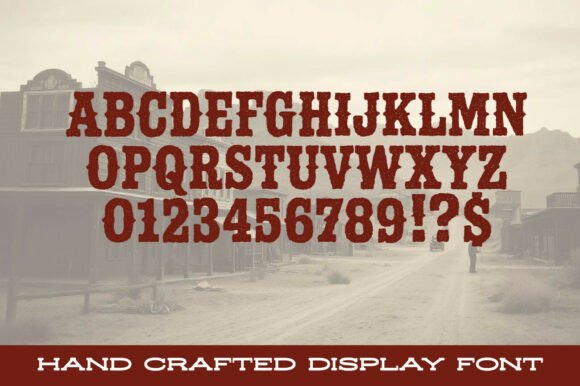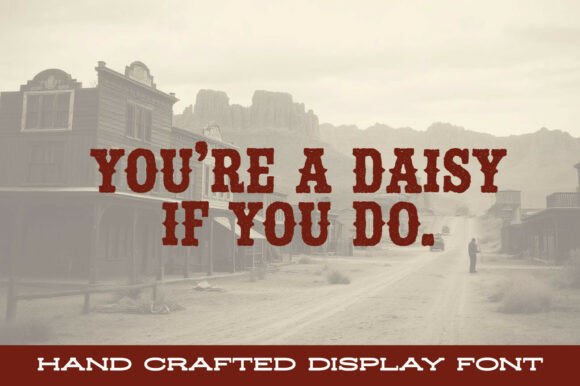
Introduction to Hitchpost Font
Remember the moment when you stumbled upon the perfect font for your design project? The one that instantly transports you to a dusty trail, an old saloon, or a vintage poster? For designers, that ‘aha’ moment is priceless. It’s the spark that ignites creativity and sets your project apart from the rest. For many, that font is Hitchpost Font – a bold, weathered slab-serif font that exudes rugged charm.
As a valuable design resource, Hitchpost Font offers a high-quality, high-impact solution for designers seeking a distinctive look. With its gritty texture, heavy serifs, and spur details, this font is perfect for Western-themed designs, vintage branding, and bold headlines that demand attention. Whether you’re working on a free download project or a paid design job, Hitchpost Font is a versatile tool that can elevate your creative project.
Key Features of Hitchpost Font
- High-quality font design with a unique, modern aesthetic, perfect for creative projects.
- Includes a range of glyphs and characters, ideal for professional and personal use.
- Perfect for use in various design applications, including digital art, graphic design, and print media.
Honest Review: Hitchpost Font
I recently stumbled upon the Hitchpost Font and was immediately drawn to its high quality and unique aesthetic. The transparent background and minimalist design make it a fantastic addition to any design project.
Here are some aspects that really work well for me:
- ✨ The font is incredibly versatile and can be used for a wide range of creative projects, from branding to editorial content.
- ✨ The high quality of the font ensures that it looks crisp and clear, even at larger font sizes.
However, there are a few limitations that I’ve encountered:
- ⚠️ The font may not be as readable at smaller font sizes, which can be a concern for certain design applications.
- ⚠️ The transparent background can sometimes make it difficult to use in certain design contexts, such as on dark-colored backgrounds.
Overall, I’m really impressed with the Hitchpost Font and think it’s a great resource for designers. Its unique design and high quality make it a fantastic addition to any design project. Just be aware of the potential limitations and use it accordingly.
The Hitchpost Font is a high-quality design resource perfect for any creative project. With its unique and versatile style, this font is ideal for designers and artists looking to add a touch of sophistication to their work.
Tips for Getting the Most Out of Hitchpost Font
To get the most out of the Hitchpost Font, try experimenting with different font sizes, colors, and combinations to create unique and eye-catching designs. You can also use the font in conjunction with other design elements, such as images and graphics, to add depth and interest to your project.
The Hitchpost Font is perfect for a variety of creative projects, including:
- Brochures and flyers
- Posters and advertisements
- Wedding invitations and event materials
Conclusion
The Hitchpost Font is a versatile and high-quality design resource that can be used in a variety of creative projects. With its transparent background and unique style, this font is perfect for designers and artists looking to add a touch of sophistication to their work.